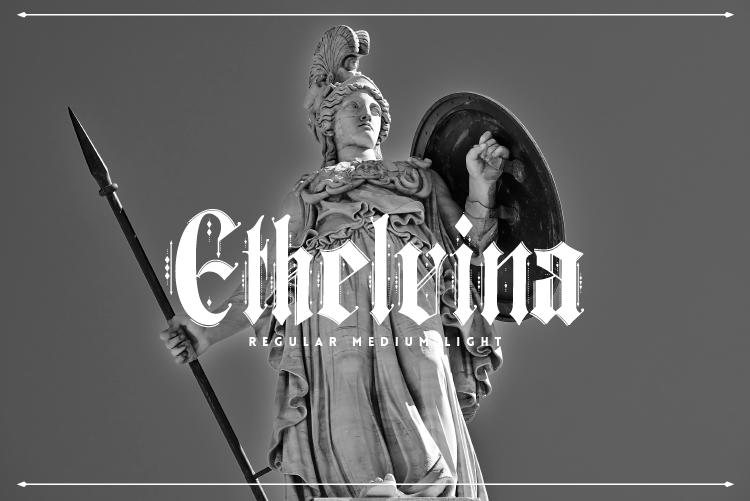
Ethelvina Font
Ethelvina is a typography of gothic style, with presence, elegant and modern. Designed by Yai Salinas (Buenos Aires | Argentina) Her name commemorates a very special person for her, named Ethel.